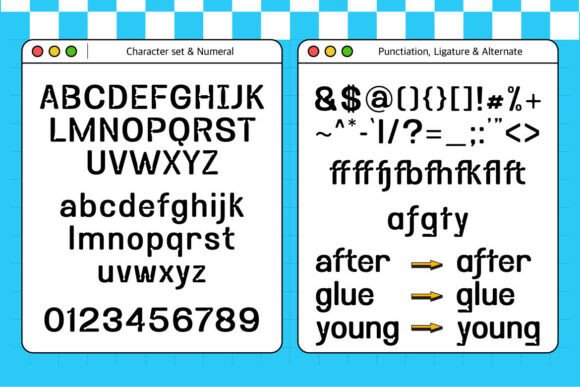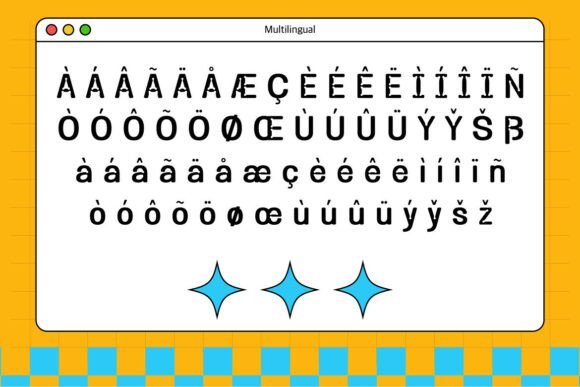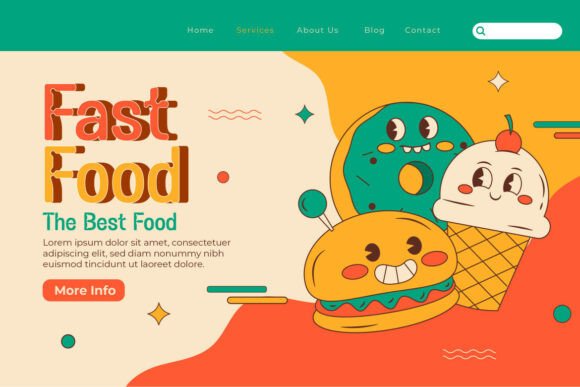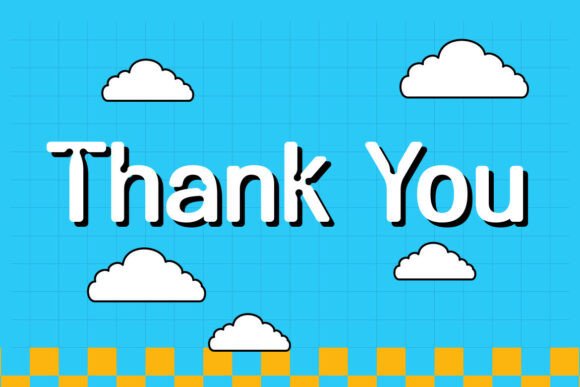
Introduction to Mozarelly Font Font
Fonts play a crucial role in design, and the Mozarelly Font font is a typeface that brings both character and versatility to any project. Whether you’re working on a branding project, a website, or a print design, the Mozarelly Font font offers a unique style that can elevate your work.
| π Font Name | Mozarelly Font |
| π€ Author | TypeFactory |
Mozarelly is a playful rounded sans serif typeface designed with soft curves and friendly letterforms.
The rounded structure gives the font a warm and approachable character, making it suitable for cheerful and informal design projects This typeface works well for childrenβs design, food branding, packaging, posters, and playful visual identities.
Key Features of Mozarelly Font Font
Why Choose Mozarelly Font Font?
The Mozarelly Font font is more than just a typeface β it’s a design tool that helps you communicate your message with style and clarity. Its unique character set and versatile design make it suitable for a wide range of applications, from elegant invitations to bold headlines.
With its carefully crafted letterforms and balanced proportions, the Mozarelly Font font ensures readability and visual appeal across all mediums.
What makes Mozarelly Font font special?
The Mozarelly Font font stands out with its unique design, exceptional readability, and versatility across various design applications.